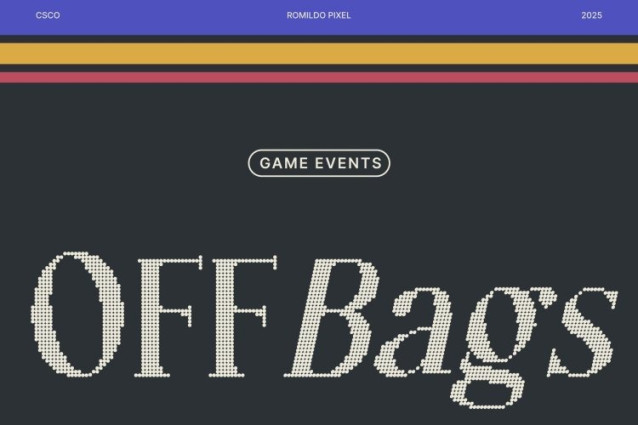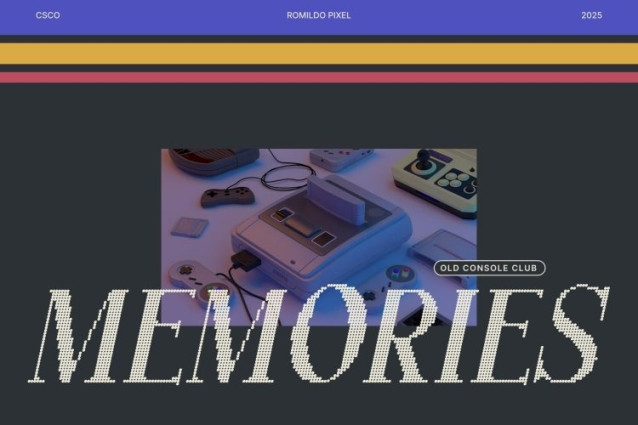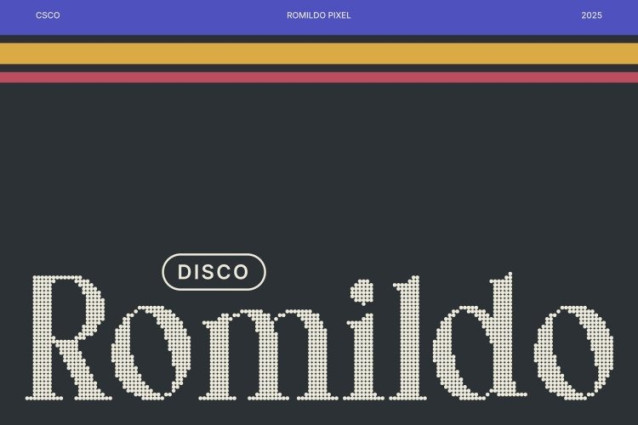
Romildo Disco Font
Romildo Disco Font is a modern serif display font infused with a disco-inspired shimmer vibe, blending elegance with retro flair. Each letter radiates a subtle glow that evokes movement and rhythm, giving your designs a stylish and artistic personality.
Retro Energy with a Classy Edge
With its refined serif structure and lively disco influence, this font captures a balance between vintage glamour and modern sophistication. The shimmering details add a sense of motion and luxury, making it perfect for designs that want to shine with confidence and creativity.
Perfect for Branding, Editorials, and Posters
Whether for branding, editorial layouts, posters, or creative projects, this font delivers a modern yet classy impression. Its expressive character makes it ideal for titles and headlines that aim to stand out with a touch of rhythm and refinement.
Stylish, Artistic, and Timelessly Modern
This font is not just a typeface it’s a statement of creativity. With its shimmering retro aesthetic and sophisticated serif form, it’s the perfect choice for designers seeking a font that celebrates both modern elegance and disco-inspired energy.